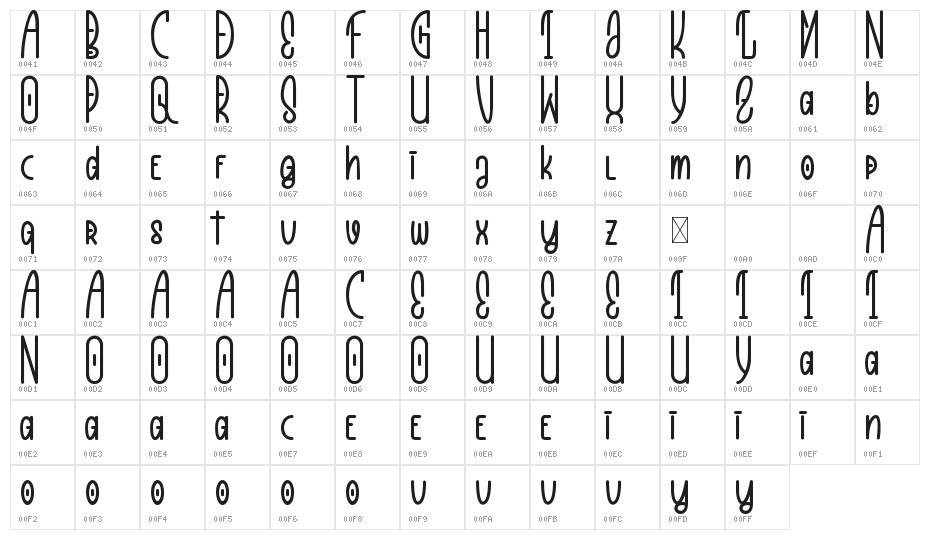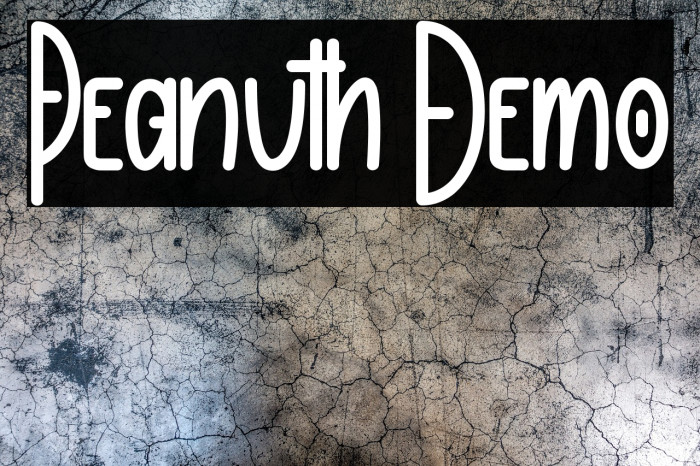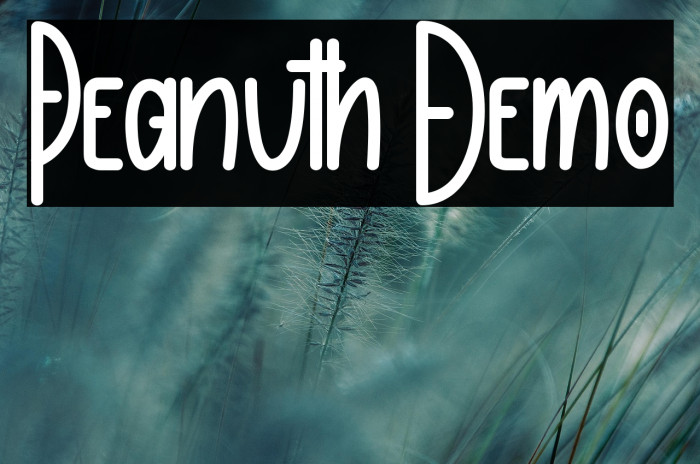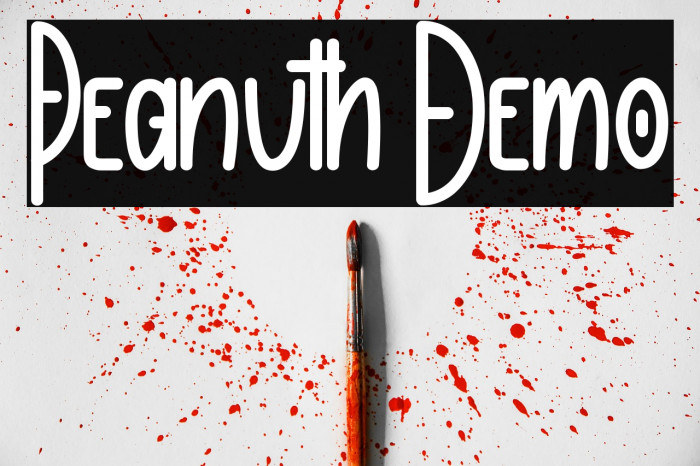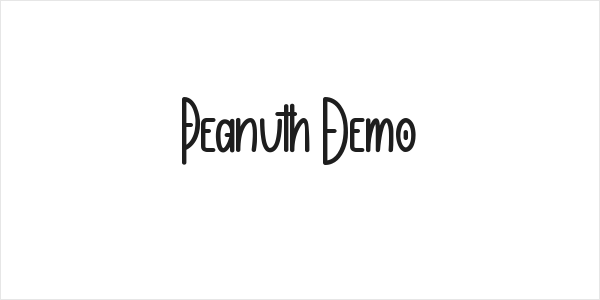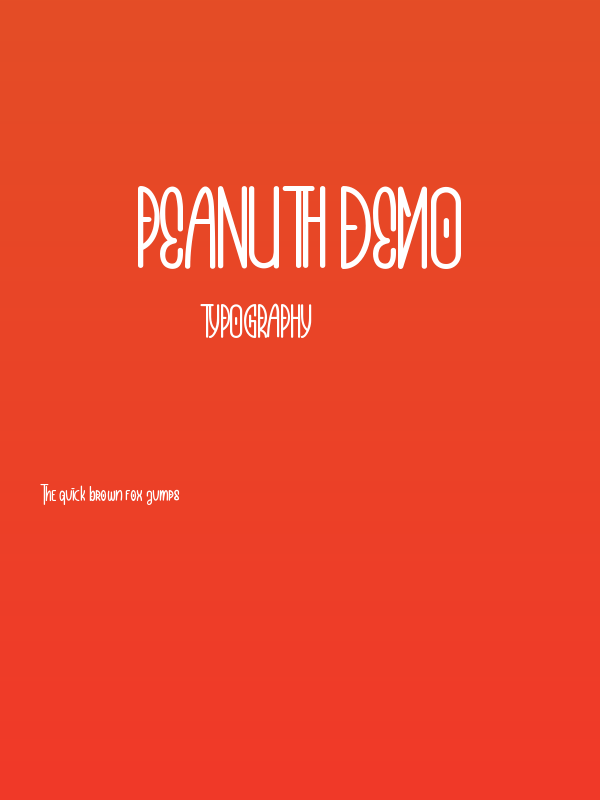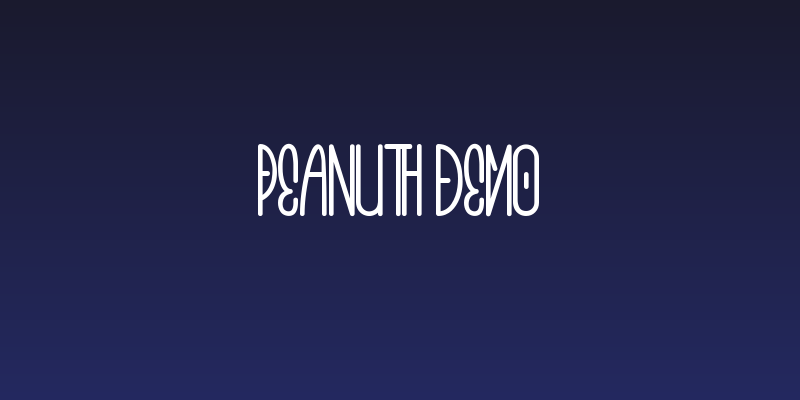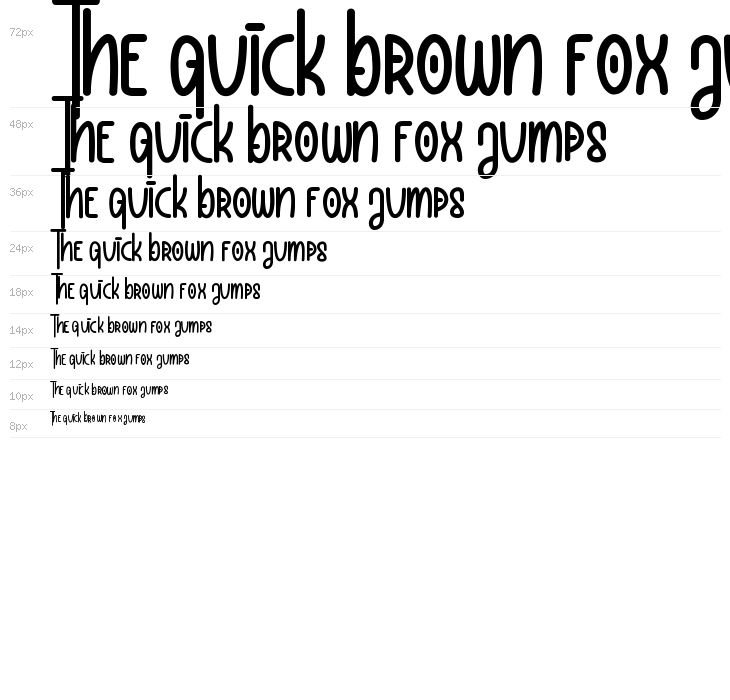
Peanuth Demo Font
Peanuth Demo Description
This font features a playful and whimsical design with elongated, rounded characters that create a sense of movement and energy. The uppercase letters are tall and narrow, while the lowercase letters have a more relaxed, flowing appearance. The strokes are consistent in thickness, providing a uniform look across all characters. The font includes a full set of uppercase and lowercase letters, numbers, and a selection of special characters. Its unique style makes it stand out, ideal for projects that require a fun and engaging typeface.